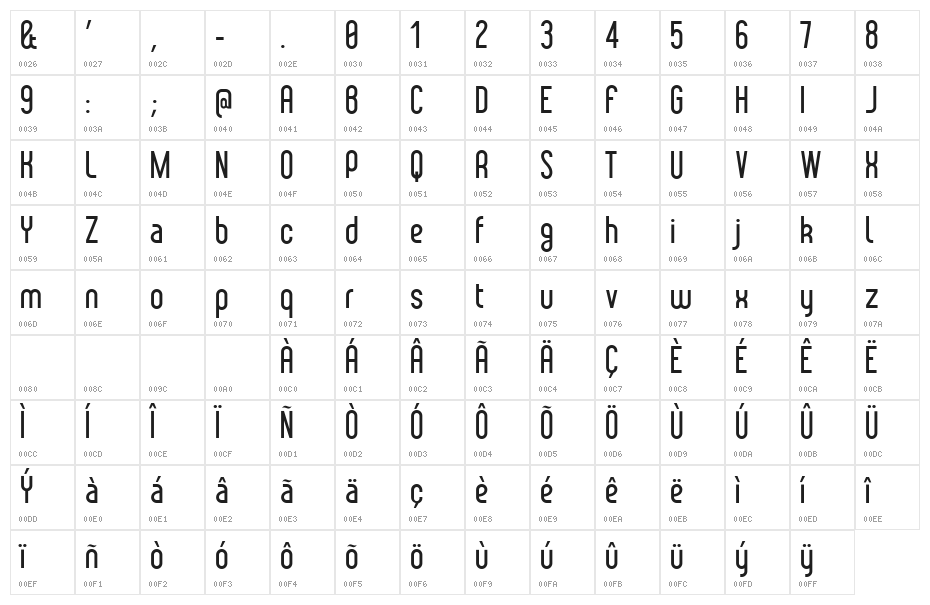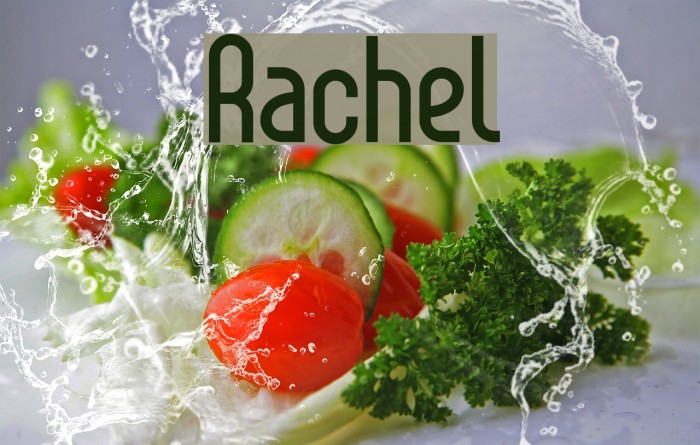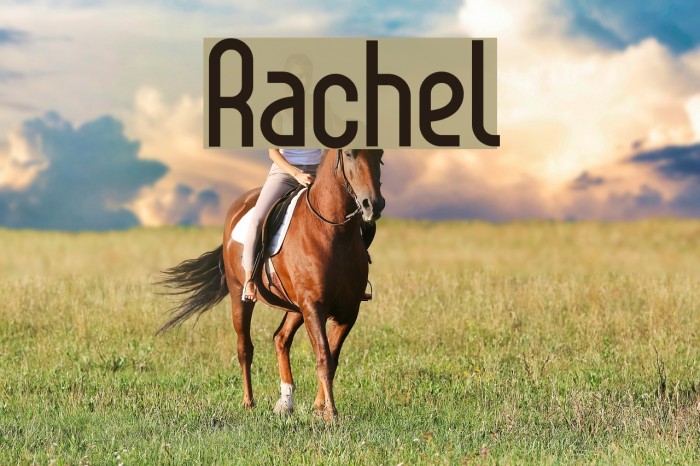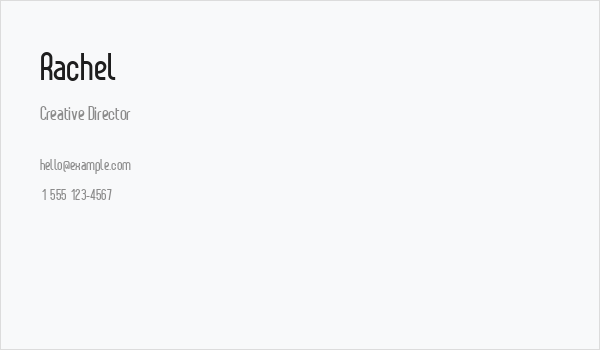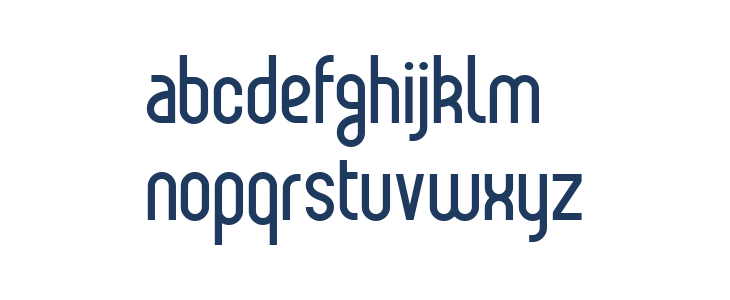
Rachel Font
Rachel Description
This font features a clean and modern sans-serif design with a geometric structure. The characters are tall and narrow, giving it a sleek and contemporary appearance. The uppercase letters are uniform in height, while the lowercase letters maintain a consistent baseline, enhancing readability. The numerals are well-proportioned, matching the overall style of the alphabet. Special characters are distinct and easily recognizable, adding to the font's versatility. The overall design is minimalistic, making it suitable for a wide range of applications.
| Use Case | Headlines, Body text, Logos |
| Proposed Projects | Ideal for branding, advertising, web design, and editorial projects. |